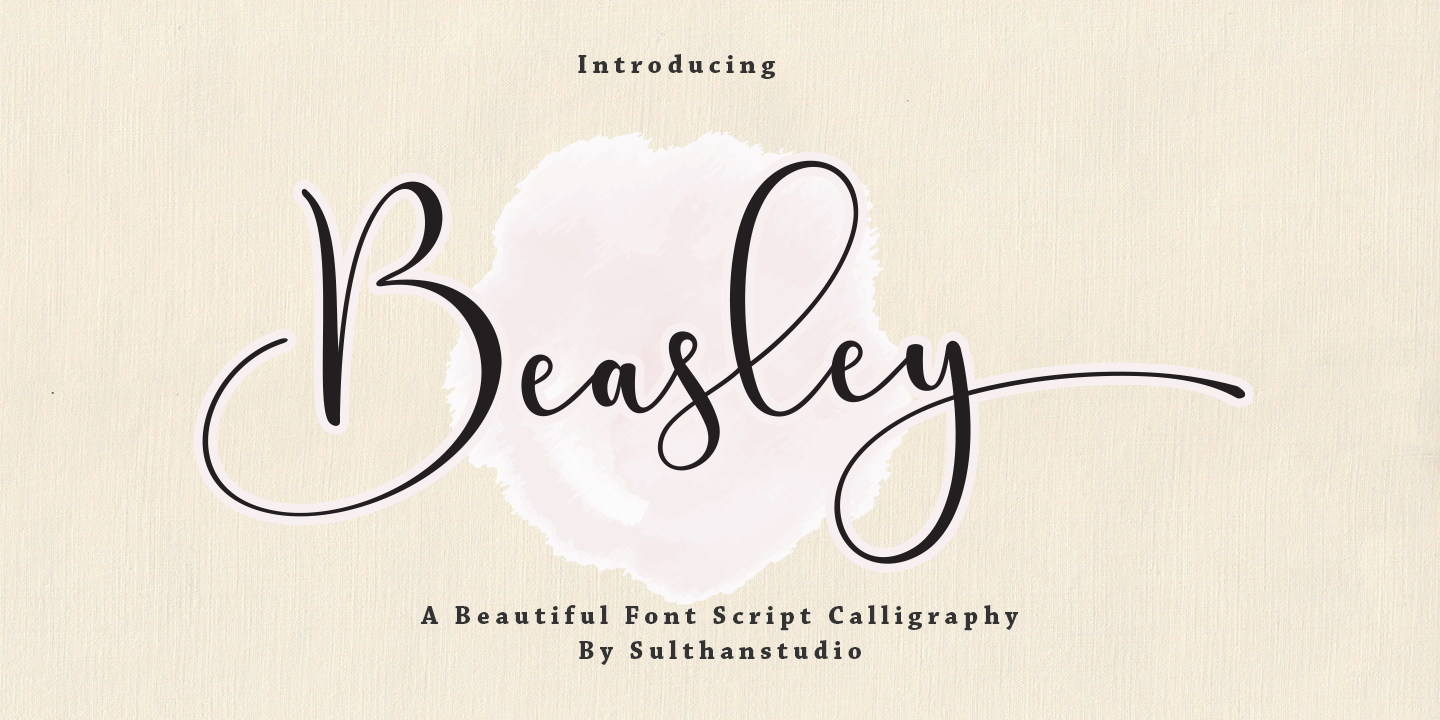
Beasley Font Free Download – A Playful Yet Polished Handwritten Script
Add personality and warmth to your designs with Beasley Font Free Download, a charming handwritten typeface that balances casual flair with professional polish. Perfect for brands wanting to appear approachable yet refined, this versatile font works beautifully for packaging, social media, and boutique branding.
Why Beasley Font Stands Out
1. Authentic Handwritten Character
Natural ink flow and slight imperfections
Consistent baseline for readability
Lively bounce without being distracting
Artisan food packaging
Lifestyle blogger branding
Wedding invitations
Small business logos
Personalized products
3. Premium Features
600+ glyphs including alternates
Contextual ligatures
Multilingual support
PUA encoded OpenType features
Creative Ways to Use Beasley Font
DIY greeting cards
Recipe books
Journal headers
Handmade gift tags
Coffee shop branding
Boutique product labels
Creative agency materials
Stationery collections
Designer's Pro Tips
Combine with clean sans-serifs
Accent with watercolor textures
Use earthy, natural color palettes
18-24pt for best readability
Works beautifully in lowercase
Great for short to medium text